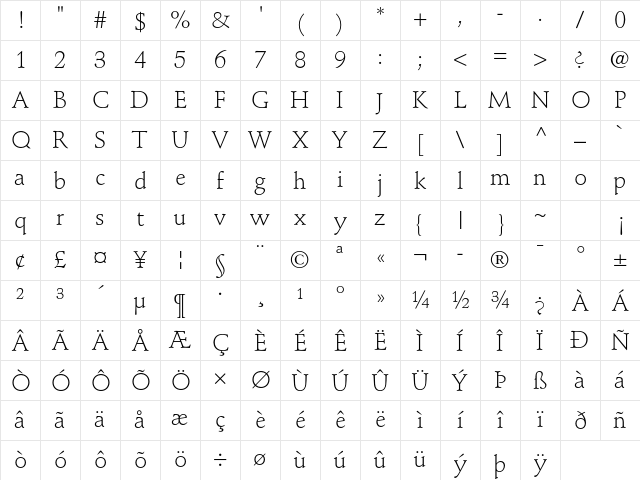
Stempel Schneidler Std Light
Designer: F.H. Ernst Schneidler
Design Context for Stempel Schneidler Std
Stempel Schneidler Std is a composed and adaptable typeface that performs quietly and consistently across a wide range of design contexts. Its slender proportions lend an understated elegance to any composition.